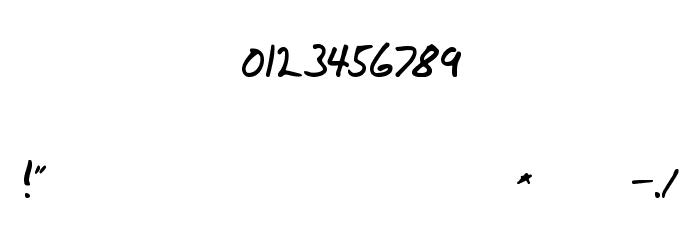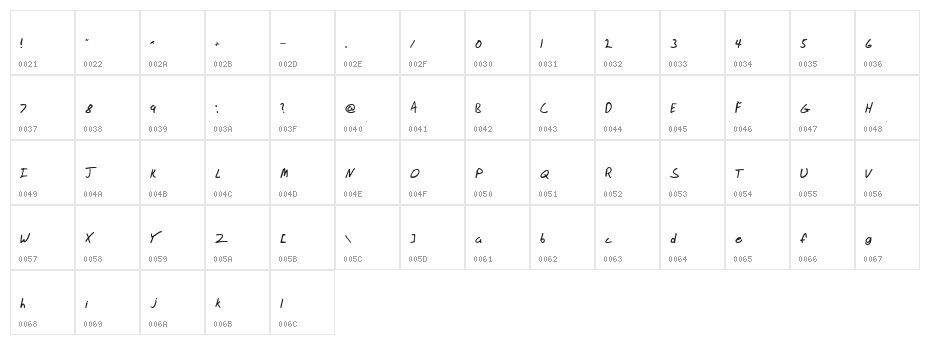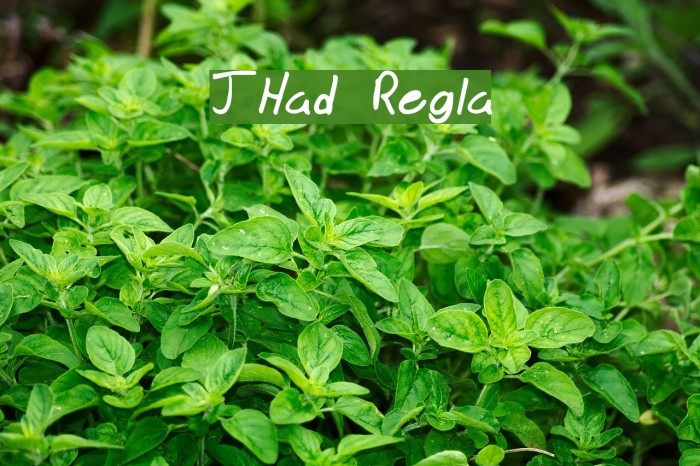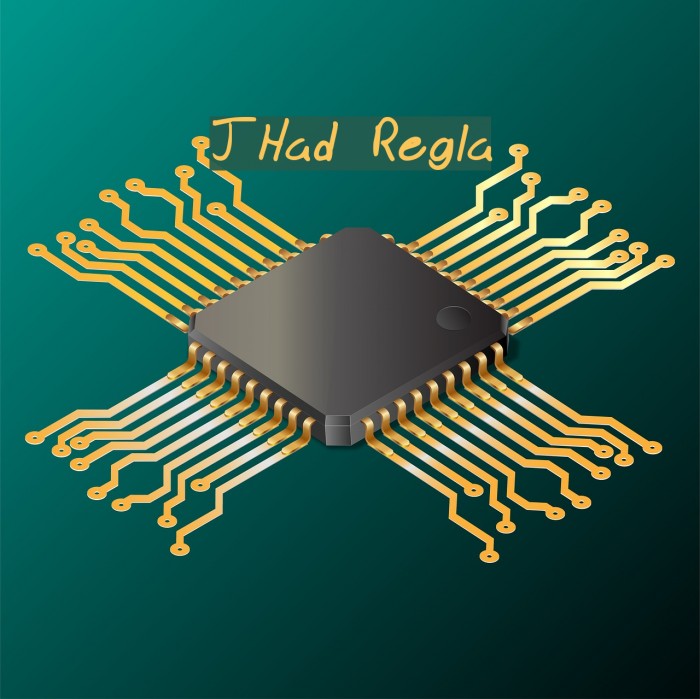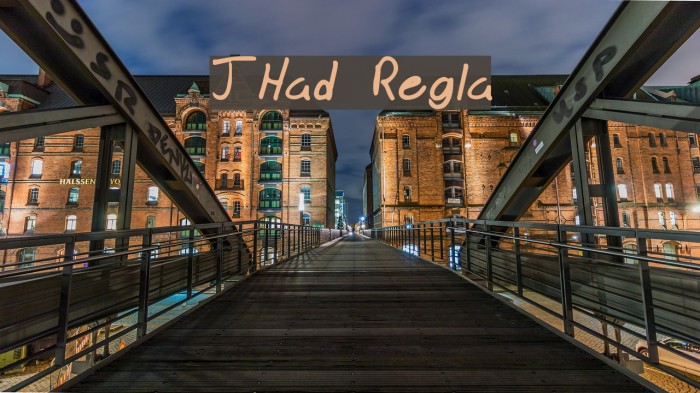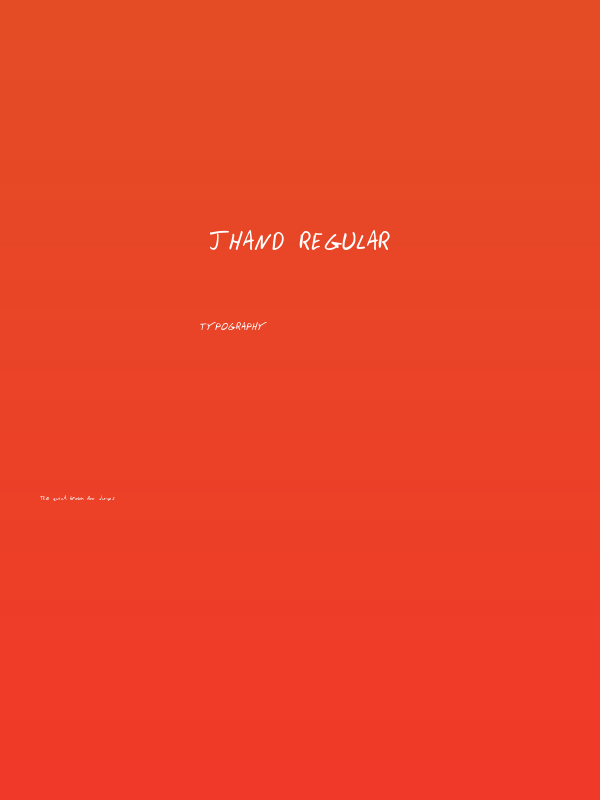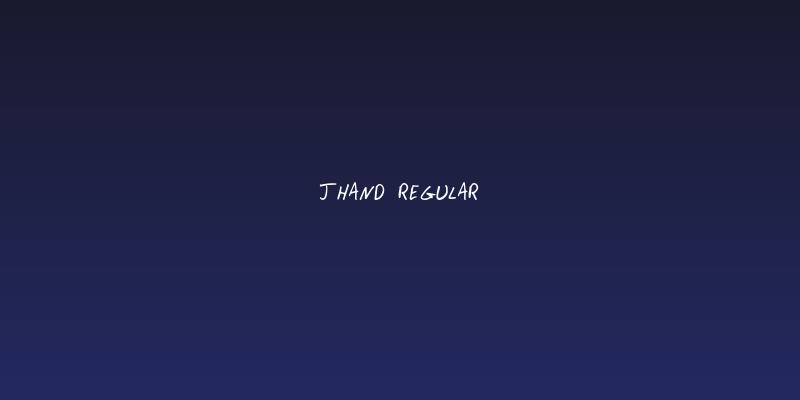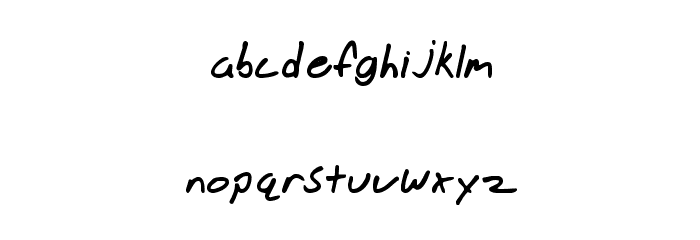
JHand Regular Font
JHand Regular Description
This font exhibits a playful and casual handwritten style, characterized by its smooth, flowing strokes and slightly irregular letterforms that mimic natural handwriting. The uppercase and lowercase letters maintain a consistent style, with rounded edges and a slight slant, giving it a relaxed and approachable feel. The numerals and special characters follow the same aesthetic, ensuring uniformity across all glyphs. This font is well-suited for projects that require a personal touch, such as invitations, greeting cards, or informal branding materials. Its legibility and charm make it a versatile choice for various creative applications.